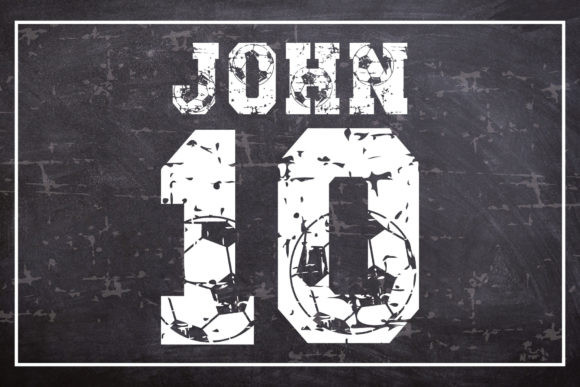
Have you ever been stuck in a design rut, searching for the perfect font to give your project that extra oomph? It’s like trying to find the perfect soccer cleat – it’s out there, but you need to know where to look. For designers looking to score big with their sports-related designs, we’ve got the solution: Grunge Soccer Font.
This bold and assertive display font is the perfect addition to any sports-themed project. With its sharp, cool aesthetic, Grunge Soccer Font is sure to inspire and captivate your audience. Whether you’re designing a jersey, a stadium sign, or a sports magazine cover, Grunge Soccer Font is the perfect choice. Its endless possibilities make it a valuable asset for designers, and its unique style is sure to set your work apart from the competition.
Grunge Soccer Font Key Features
- Font Family: Grunge Soccer Font is a unique, distressed font family that mimics the look of worn, vintage soccer jerseys.
- Unique Characteristics: Distressed texture, worn edges, and subtle imperfections give the font a nostalgic, vintage feel, perfect for retro-themed designs or sports-related projects.
Grunge Soccer Font Review
I recently had the chance to work with the “Grunge Soccer Font” and here’s my honest take on it.
- Unique aesthetic: The font’s distressed, grungy feel gives it a unique charm that can add character to any design project.
- Great for sports themes: As the name suggests, the font is perfect for sports-themed designs, especially soccer-related ones.
- Customization options: The font comes with a range of customization options, including different font weights and styles, which can be useful for designers.
- Limited legibility: The font’s distressed look can make it difficult to read, especially in smaller font sizes or when used in body text.
- Not ideal for formal designs: The font’s grungy aesthetic may not be suitable for formal or professional designs, such as business cards or resumes.
Overall, I think the “Grunge Soccer Font” is a great addition to any designer’s toolkit, but it’s essential to use it judiciously and in the right context. With its unique aesthetic and customization options, it can add a lot of character to sports-themed designs. However, its limited legibility and suitability for formal designs are definite limitations to consider.
The Grunge Soccer Font is ideal for:
- Sporting event graphics and posters
- Music festival and concert promotions
- Streetwear and action sports branding
To get the most out of the Grunge Soccer Font, try:
- Combining it with bold, bright colors
- Using it in conjunction with distressed textures
- Experimenting with different